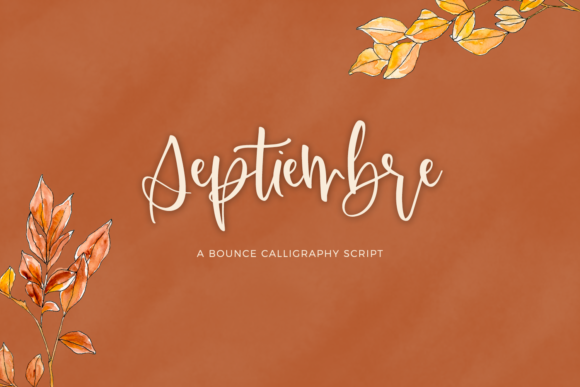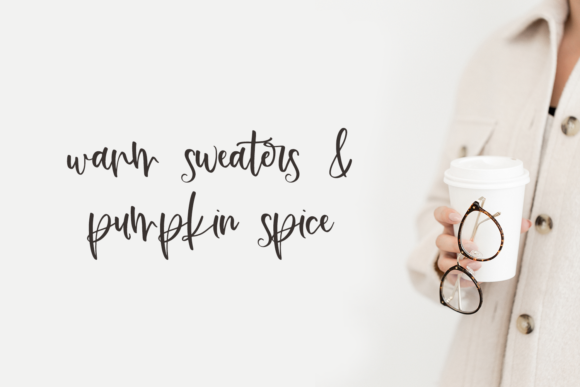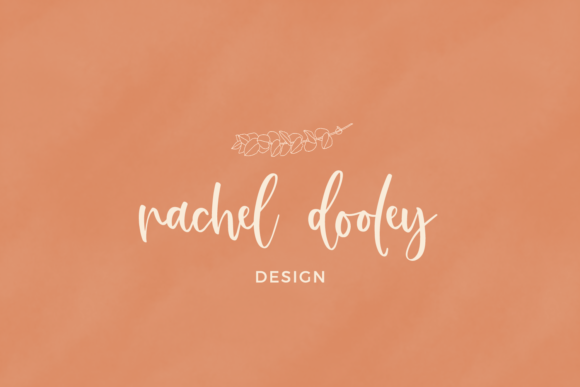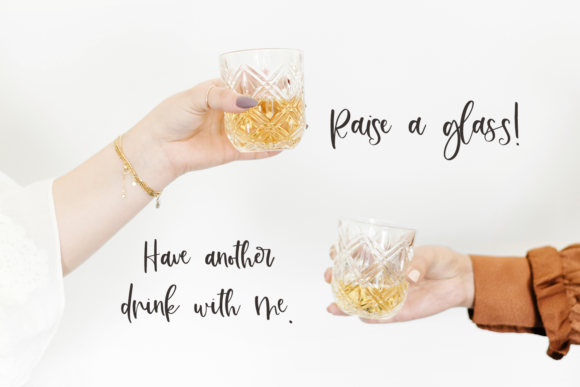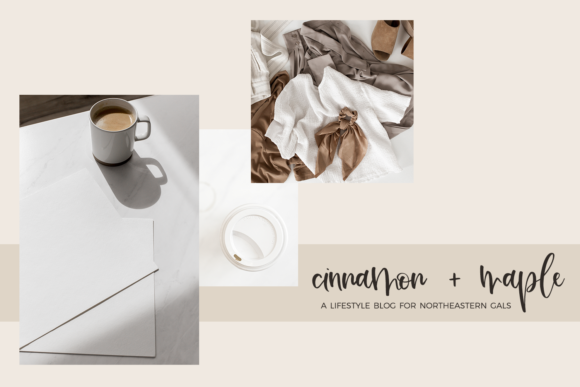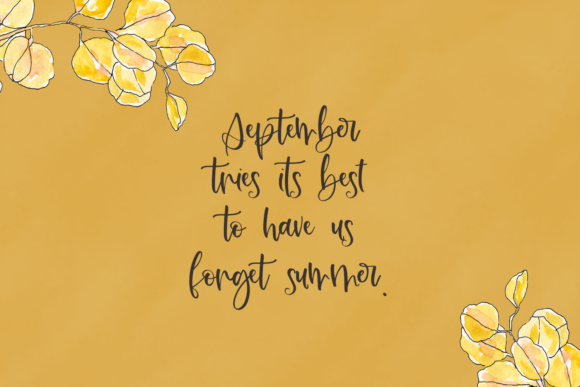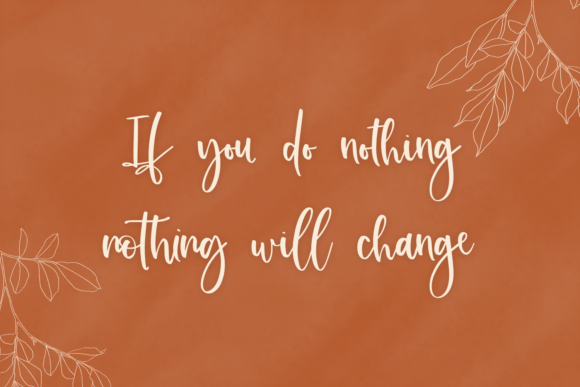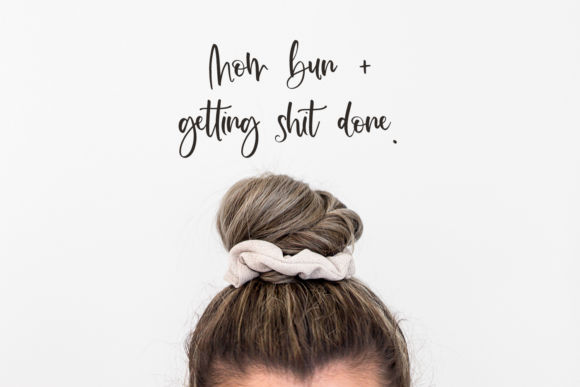
Septiembre Font
About Septiembre Font
Septiembre: Embrace the Distinct, Delicate, and Timeless Handwritten Font
Introducing Septiembre, a font that exudes distinctiveness, delicacy, and timelessness with its stunning handwritten style. Its unique and elegant appearance makes it a perfect choice for a wide range of designs. Whether you’re crafting enchanting wedding invitations, heartfelt thank you cards, inspiring quotes, captivating logos, sophisticated business cards, or any other project that calls for a handwritten touch—Septiembre is the ideal companion. With its captivating beauty, this font elevates your designs to new levels of elegance and charm.
The allure of Septiembre lies in its distinct and delicate nature. Each letter is carefully crafted to showcase a sense of sophistication, instantly capturing attention and leaving a lasting impression.
Designing with Septiembre is a delightful experience. Its timeless strokes and refined style bring a touch of authenticity to your creations, making them truly special and captivating.
Fall in love with the versatility of Septiembre. Whether you’re designing for joyous celebrations or conveying heartfelt sentiments, this font seamlessly adapts to match your creative vision.
Unleash your creativity with Septiembre. Its timeless beauty allows you to create designs that exude elegance and charm, making your projects stand out with grace.
Gorgeous designs come to life with Septiembre’s stunning and delicate style. Whether you’re crafting wedding invitations that enchant or designing logos that leave a lasting impact, this font adds a touch of sophistication that mesmerizes the eye.
In conclusion, Septiembre is more than just a font; it’s an incredibly distinct, delicate, and timeless masterpiece that invites you to explore the boundless realms of creativity. Embrace its elegance, and let it become the heart of your most cherished projects. Whether you’re celebrating love, expressing gratitude, or engaging in any creative endeavor, Septiembre will be your trusted companion, adding a touch of sophistication and charm. Allow this font to unlock the full potential of your creativity, and watch as your designs come alive with the captivating and timeless spirit of Septiembre. Fall in love with its exquisite allure, and let it guide you to create truly spectacular designs that leave a lasting impression on all who behold them.